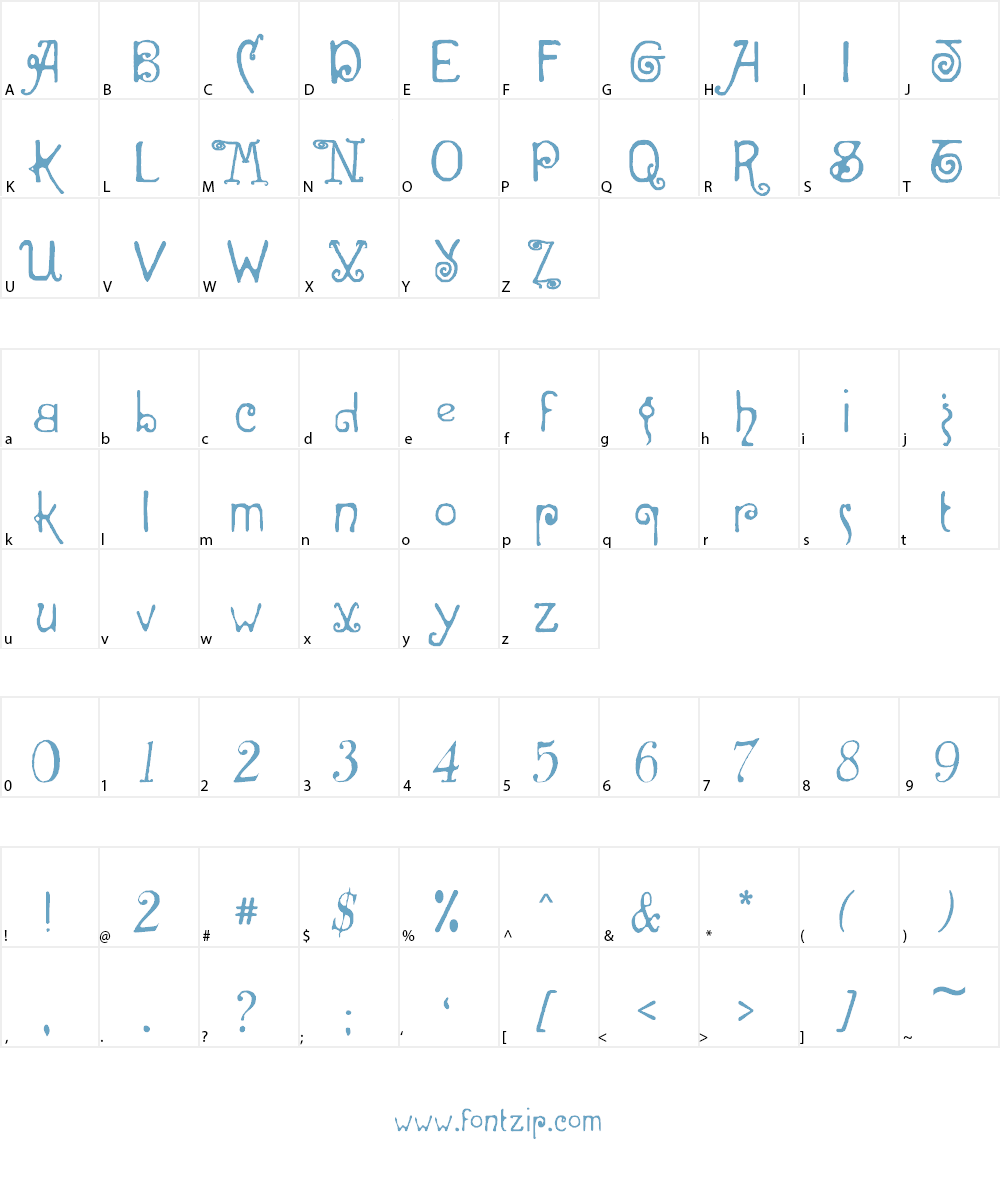
This beautiful font was inspired by a typeface found in a vintage book of poetry. The curls, long s and h, shortened e and d all make this font a very decorative font to use for invitations, cards, posters, anywhere that you want the ornate or vintage look.